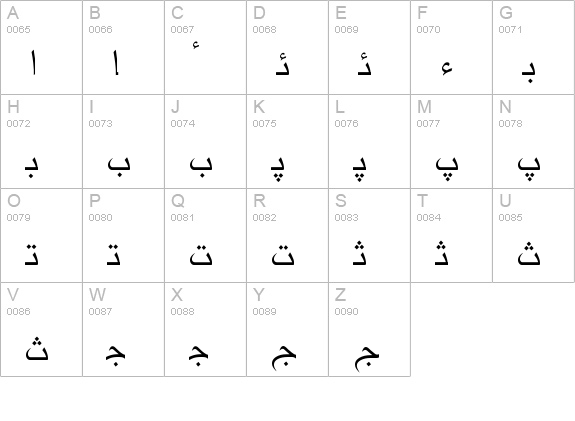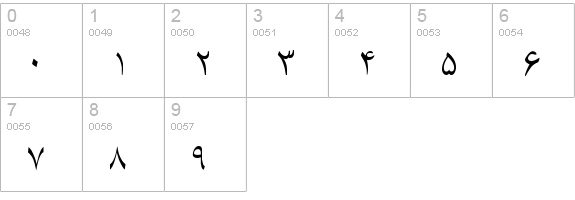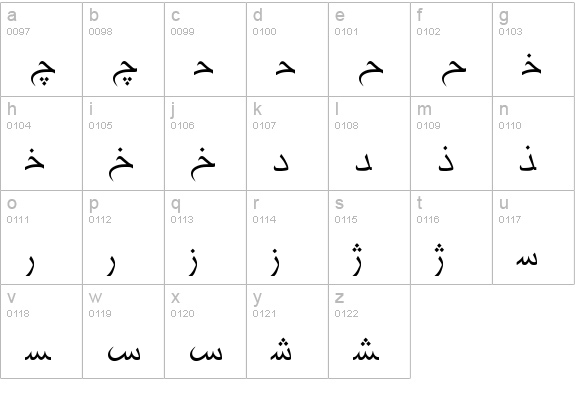
HMSKhabar Font Details
HMSKhabar font is a stunning and elegant typeface that exudes sophistication and style. With its unique blend of modern and traditional elements, this font is perfect for a wide range of design projects, from branding to editorial layouts. The graceful curves and sharp lines of HMSKhabar font make it a versatile choice for both display and text use. What sets HMSKhabar font apart is not just its beauty, but also the fact that it is available for free download at FontsMarket.com. This means that you can easily access this high-quality font without any cost, making it a valuable addition to your design toolkit. Whether you're a professional designer or a hobbyist, HMSKhabar font is sure to elevate your projects and leave a lasting impression.